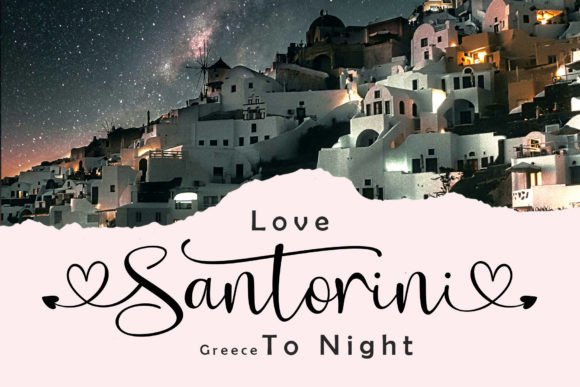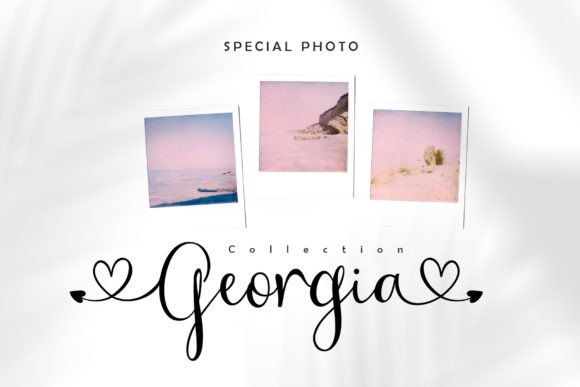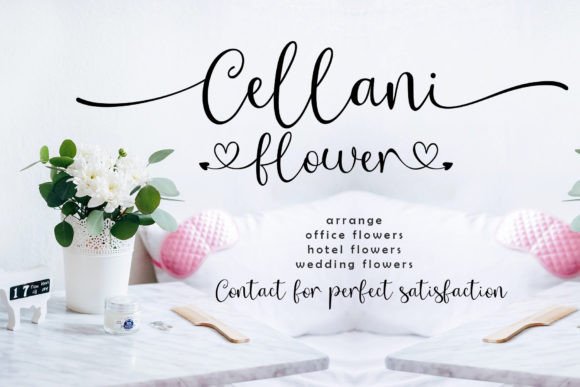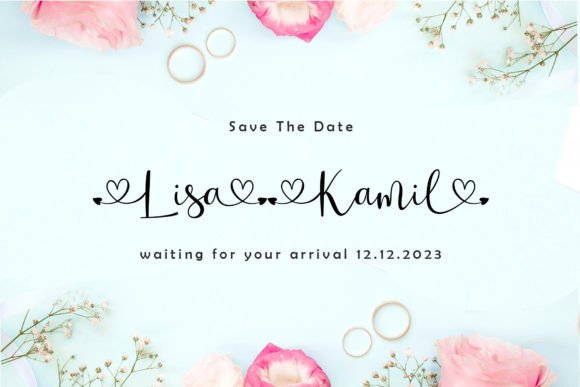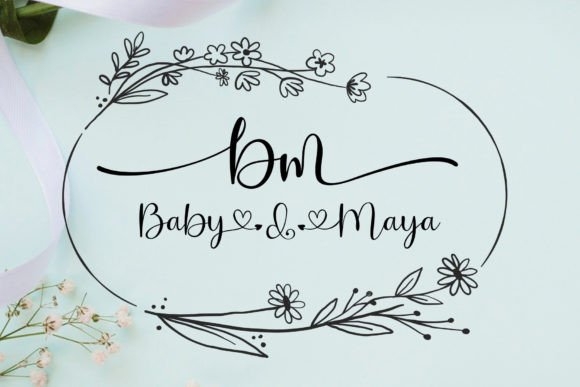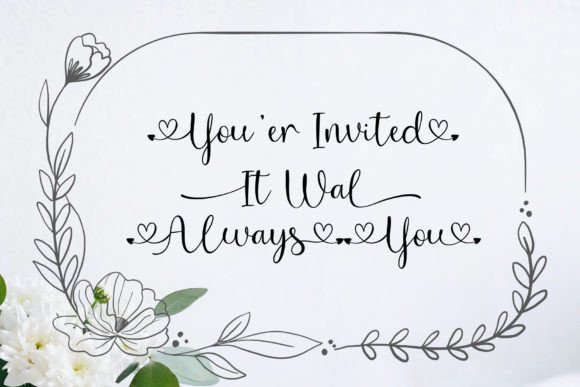
Introducing Alima Font: The Timeless Handwritten Font for Stunning Designs
Are you a designer or crafter looking for a font that can elevate your creative projects to the next level? Look no further than Alima Font, a lovely and timeless handwritten font that is sure to capture your audience’s attention. With its unique and beautiful touch, Alima Font is the perfect choice for creating eye-catching logos, branding, and quotes that will make your design come alive!
The Characteristics of Alima Font
Alima Font is a carefully crafted handwritten font that boasts a range of characteristics that make it stand out from the crowd. Each letter has a unique and beautiful touch, which gives the font a personal and human feel. The strokes are smooth and flowing, with a subtle variation in line width that adds to the font’s organic and natural look.
One of the key features of Alima Font is its timeless quality. Unlike trendy fonts that may quickly go out of style, Alima Font has a classic and enduring appeal that will remain relevant for years to come. This makes it an excellent choice for designers and crafters who want to create projects that will stand the test of time.
Uses for Alima Font
Alima Font is an incredibly versatile font that can be used for a wide range of creative projects. Here are just a few ideas to get you started:
- Logos: Create a stunning logo for your business or brand with Alima Font. The font’s unique and beautiful touch will help your logo stand out and make a lasting impression on your customers.
- Branding: Use Alima Font to create a consistent brand identity across all your marketing materials, from business cards to brochures and website headers.
- Quotes: Add a touch of elegance and sophistication to your quotes and inspirational messages with Alima Font.
- Stationery: Use Alima Font to create beautiful stationery, including invitations, greeting cards, and thank-you notes.
- Digital products: Alima Font is also perfect for digital products, such as ebooks, workbooks, and printables.
Why Choose Alima Font?
So why should you choose Alima Font for your creative projects? Here are just a few reasons:
- Unique and beautiful: Alima Font has a unique and beautiful touch that will make your designs stand out from the crowd.
- Timeless: The font’s classic and enduring appeal ensures that your designs will remain relevant for years to come.
- Versatile: Alima Font can be used for a wide range of creative projects, from logos and branding to quotes and stationery.
- Easy to read: Despite its unique and flowing strokes, Alima Font is easy to read and understand, making it perfect for body text and captions.
Tips for Using Alima Font
Here are a few tips for getting the most out of Alima Font:
- Use it sparingly: While Alima Font is beautiful, it’s best to use it sparingly to avoid overwhelming your design. Use it for headings, titles, and key messages, and pair it with a simpler font for body text.
- Experiment with colors: Alima Font looks stunning in a range of colors, from bold and bright to soft and pastel. Experiment with different colors to find the perfect combination for your design.
- Pay attention to spacing: Make sure to pay attention to spacing and kerning when using Alima Font. The font’s flowing strokes can sometimes get a bit messy, so make sure to adjust the spacing to create a clean and elegant look.
In conclusion, Alima Font is a lovely and timeless handwritten font that is perfect for designers and crafters looking to create stunning designs. With its unique and beautiful touch, Alima Font is sure to capture your audience’s attention and make your design come alive. Whether you’re creating logos, branding, quotes, or stationery, Alima Font is an excellent choice. So why wait? Download Alima Font today and start creating beautiful designs that will stand the test of time!